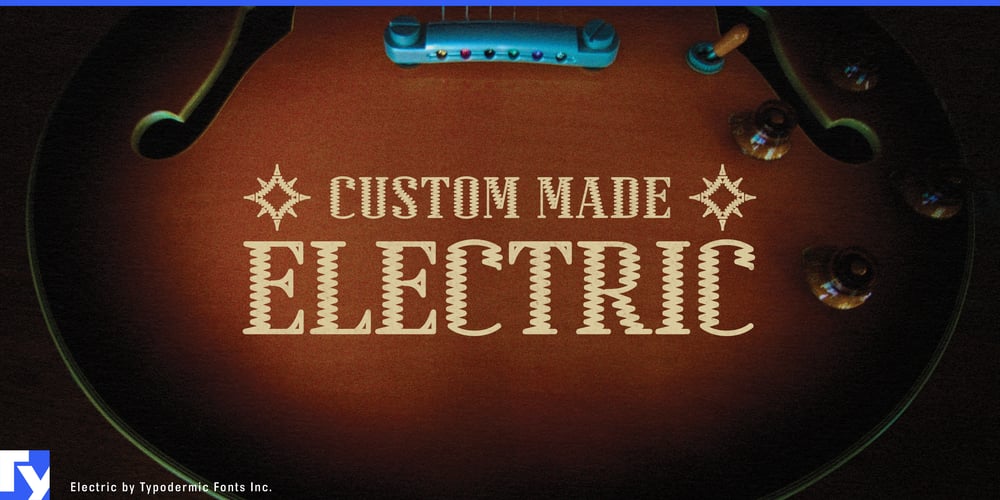
Electric Font Family was designed by Ray Larabie and published by Typodermic. Electric contains 1 styles and family package options. Electric—a typeface that roars with the same raw energy as a ’60s Gibson custom electric guitar. Inspired by the bold nameplates that adorned these legendary instruments, Electric captures the spirit of rock ‘n’ roll rebellion in every curve and angle.Picture this: It’s 1965, and guitar dealers are swapping out standard stoptails for the coveted Bigsby vibrato tailpiece. Left behind are bolt holes—unsightly blemishes on these exquisite instruments. Enter the custom nameplate, a badge of honor crafted with an eccentric zig-zag pattern font, engraved by a pantograph router’s steady hand. At each end, a pair of starburst symbols blazed like the incendiary solos these guitars would soon unleash upon the world. Electric brings this slice of rock history to your fingertips. With a flick of the wrist, summon those iconic starbursts using the lozenge symbol ◊. It’s not just a typeface—it’s a time machine, transporting your designs back to the golden age of electric guitar innovation.But Electric isn’t content to be a one-hit wonder. This versatile typeface speaks fluent rock across cultures. From the smoky clubs of Nashville to the neon-lit streets of Gothenburg, Electric’s extensive character set ensures your message hits all the right notes. It effortlessly grooves through Latin-based European languages, jams with Greek, and even takes on the complexity of Vietnamese with the same ease as a virtuoso guitarist navigating a fretboard.Whether you’re laying down tracks for an album cover, amping up a concert poster, or crafting a logo that screams rock ‘n’ roll, Electric is your backstage pass to design stardom. So why settle for the mundane when your designs can shred? Plug into Electric and watch your work come alive with the same electrifying presence that made those custom Gibsons the stuff of legend.